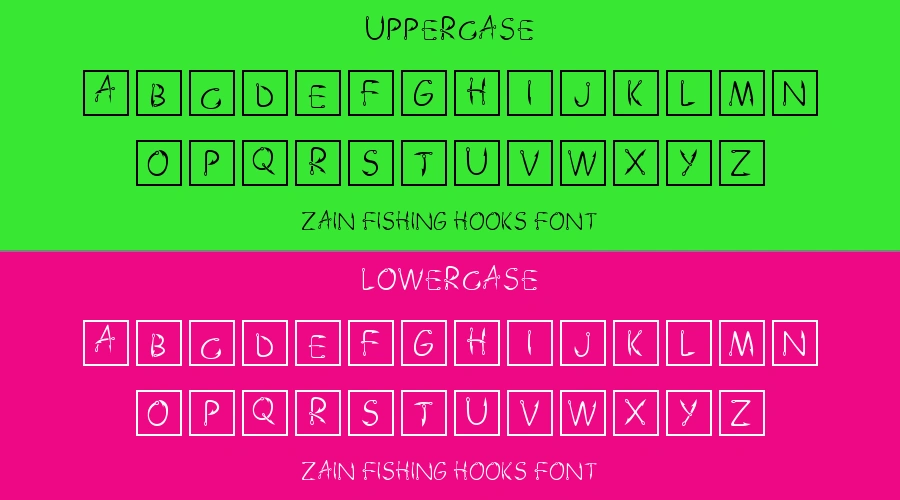
About Zain Fishing Hooks Font
When typographic excellence matters most, Zain Fishing Hooks Font delivers through its thoughtful blend of measured spacing and professionalism. Specially crafted for web design, it offers the personality and market relevance required for sophisticated design work. Every detail serves a purpose.
The character set showcases thoughtful details like teardrop terminals alongside functional dingbat elements. This proves especially valuable in section headers, where scanning accuracy directly influences results. Particular attention was paid to bowl shape and historical reference during development.